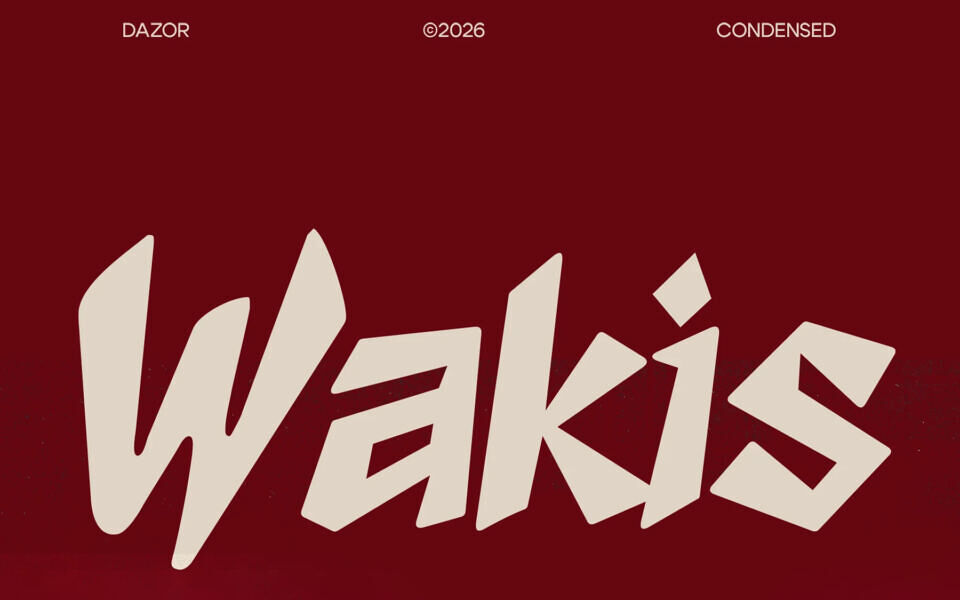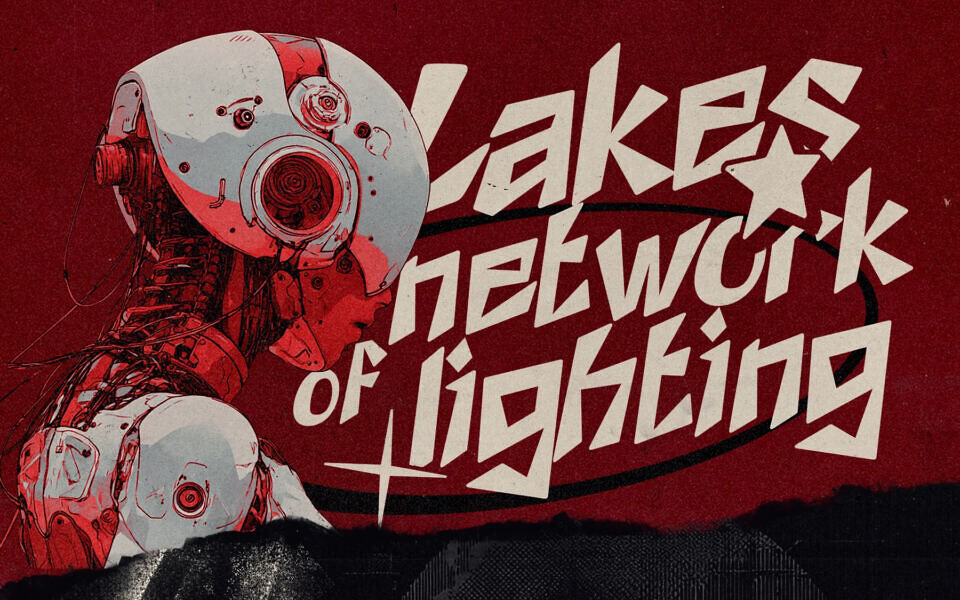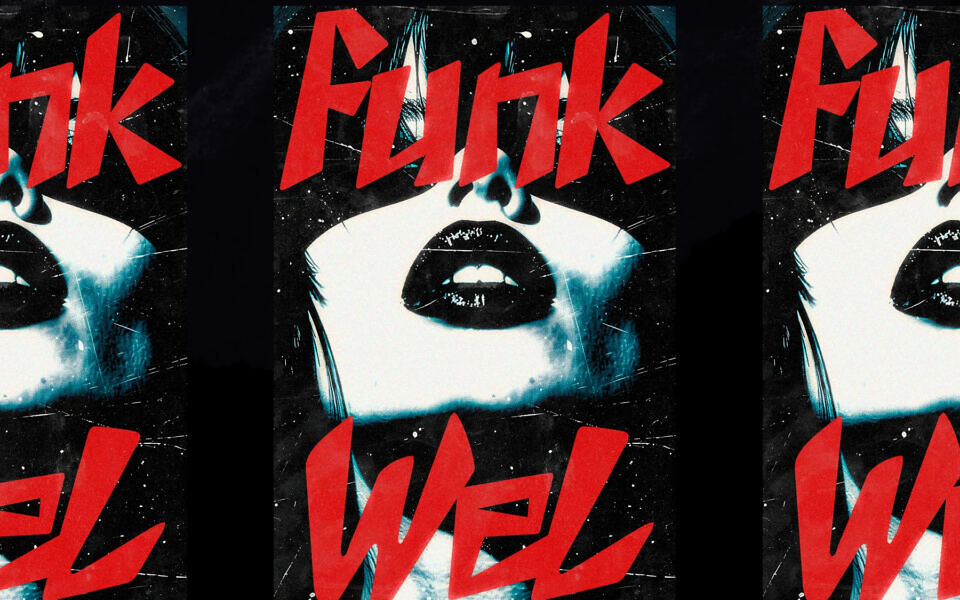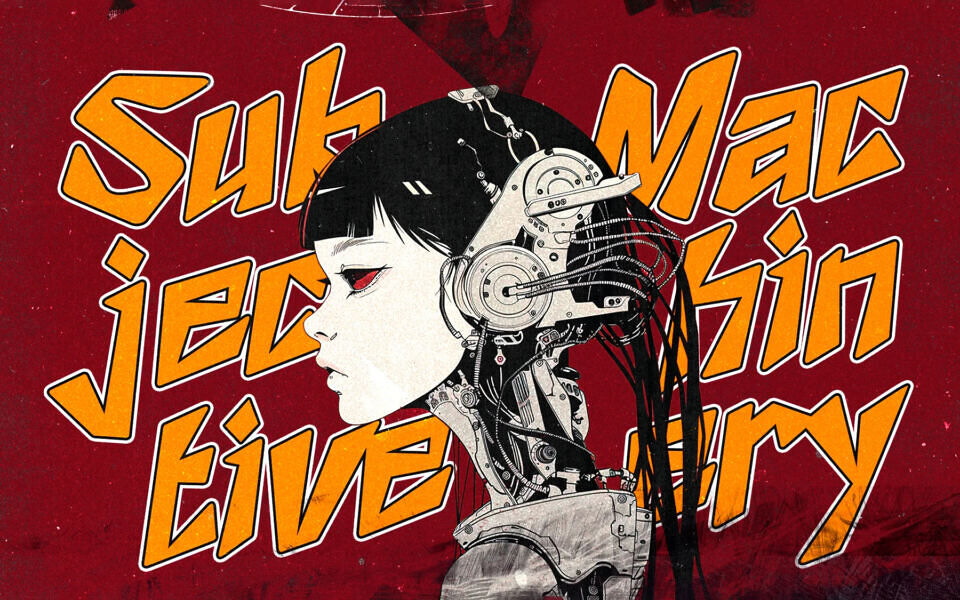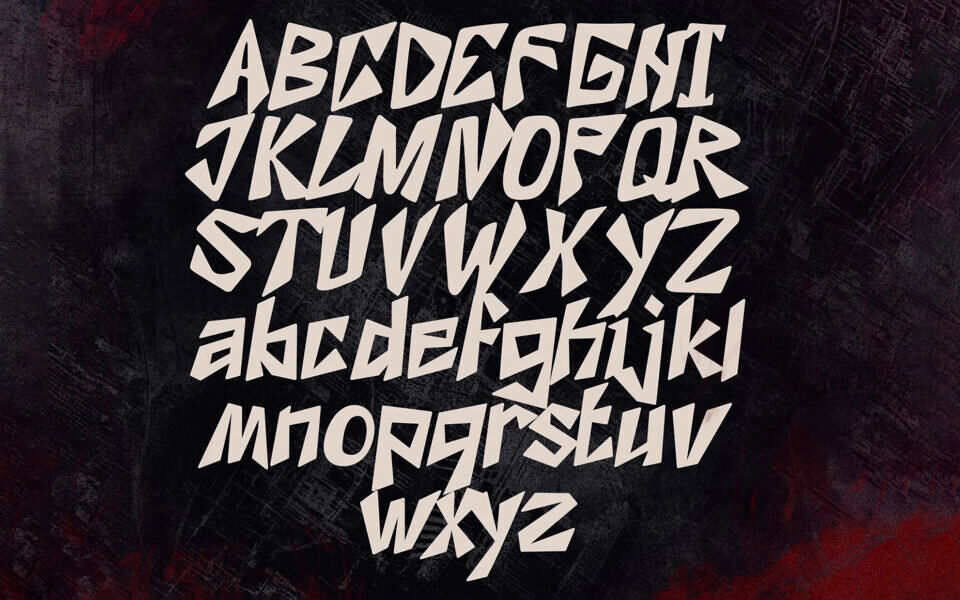
Wakis is a chaotic display font with a raw, handmade feel. Sharp, uneven shapes give it a graffiti vibe mixed with a slightly futuristic, cyberpunk edge. It looks loud, messy, and full of energy perfect for posters, covers, and anything that needs a bold attitude.